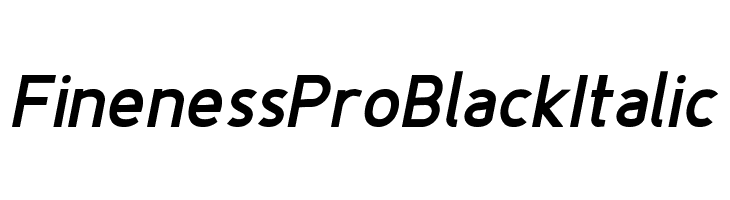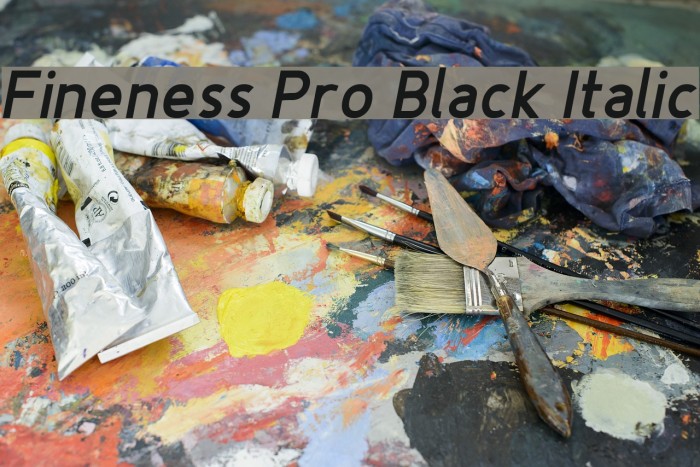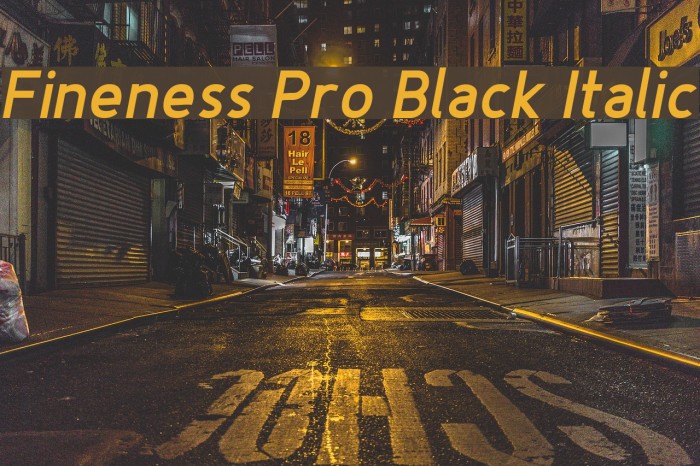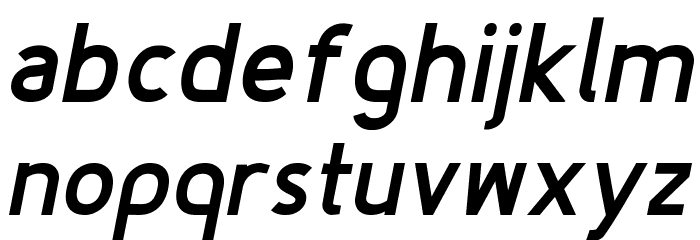
Fineness Pro Black Italic Font
Fineness Pro Black Italic Description
This typeface features a sleek and modern design with a strong italic slant, giving it a dynamic and forward-moving appearance. The characters are bold and have a consistent stroke width, which contributes to a clean and professional look. The uppercase letters are slightly taller than average, providing a sense of authority and presence. The lowercase letters maintain a harmonious balance with the uppercase, ensuring readability and aesthetic appeal. The numerals are clear and distinct, making them suitable for various applications. Special characters are well-integrated, maintaining the overall style of the typeface.
A bold, modern italic typeface with a dynamic and professional appearance from Uncategorized fonts.
- Proposed Projects: Ideal for branding, advertising, and editorial design projects where a modern and assertive look is desired.
- Use Case: Headlines, Logos, Branding